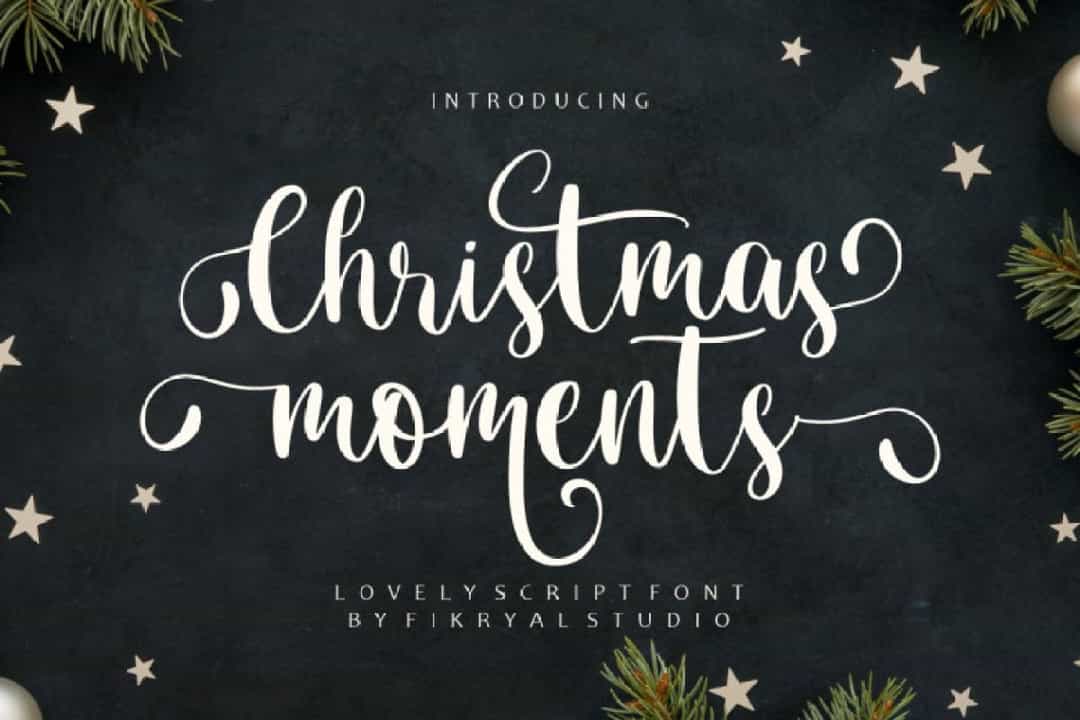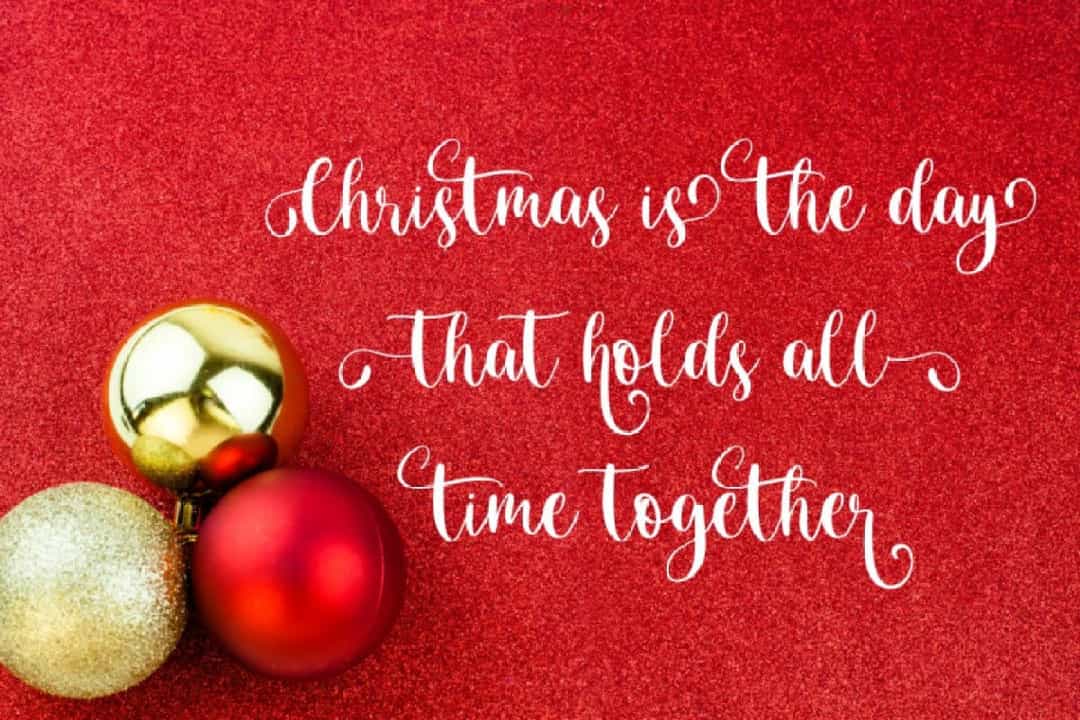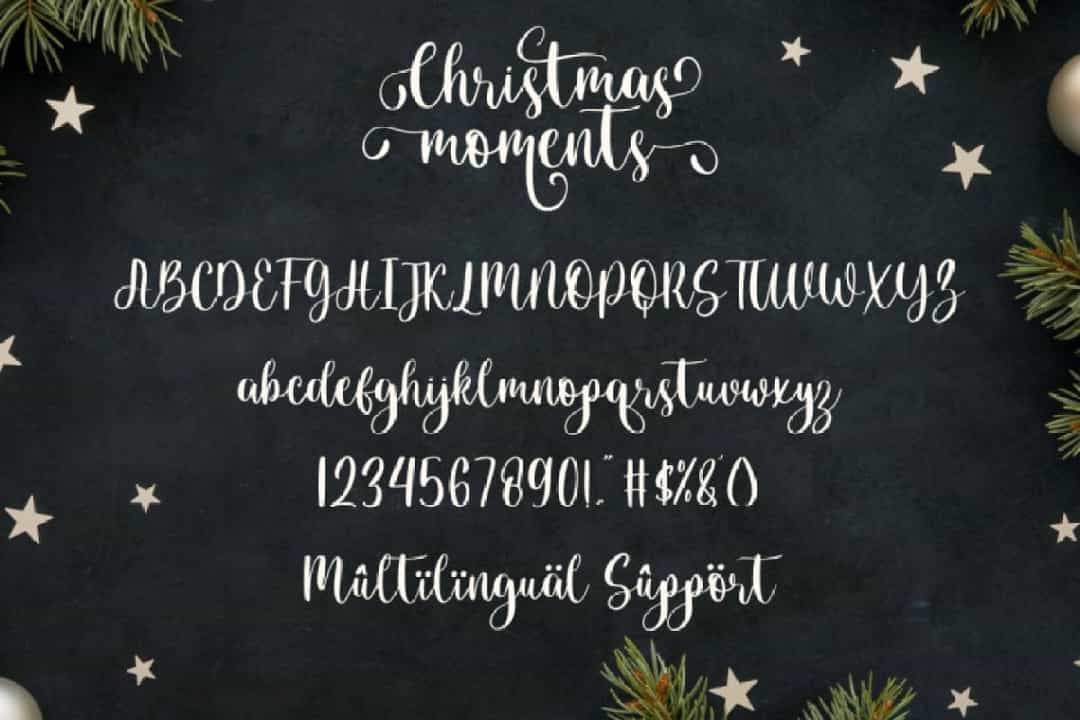
Christmas Moments is a brand-new and stylish script typeface created with calligraphy techniques. Perfect for logos and branding purposes, titles and ads on social media posts packaging products designs labels photography watermark special events magazines websites etc.